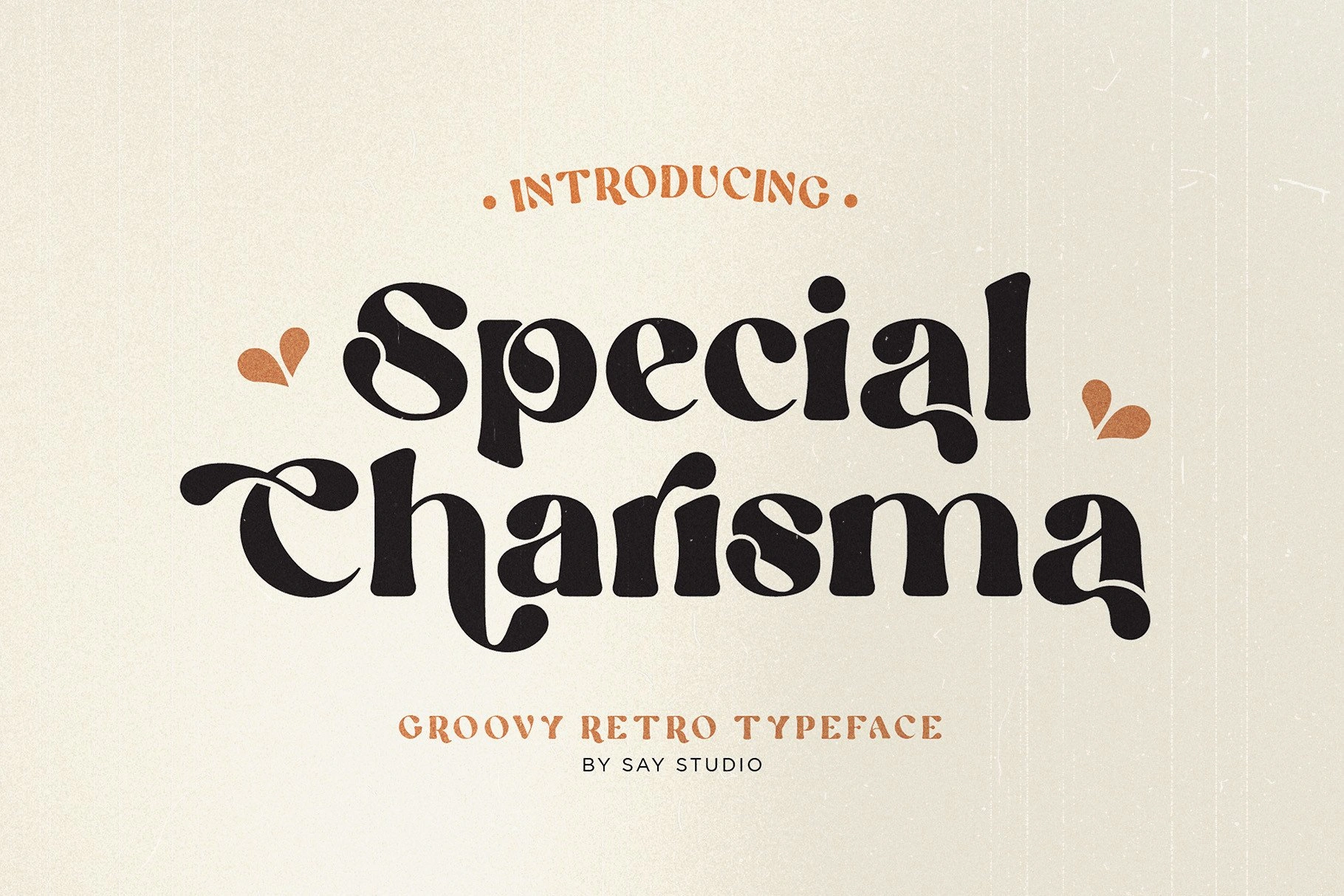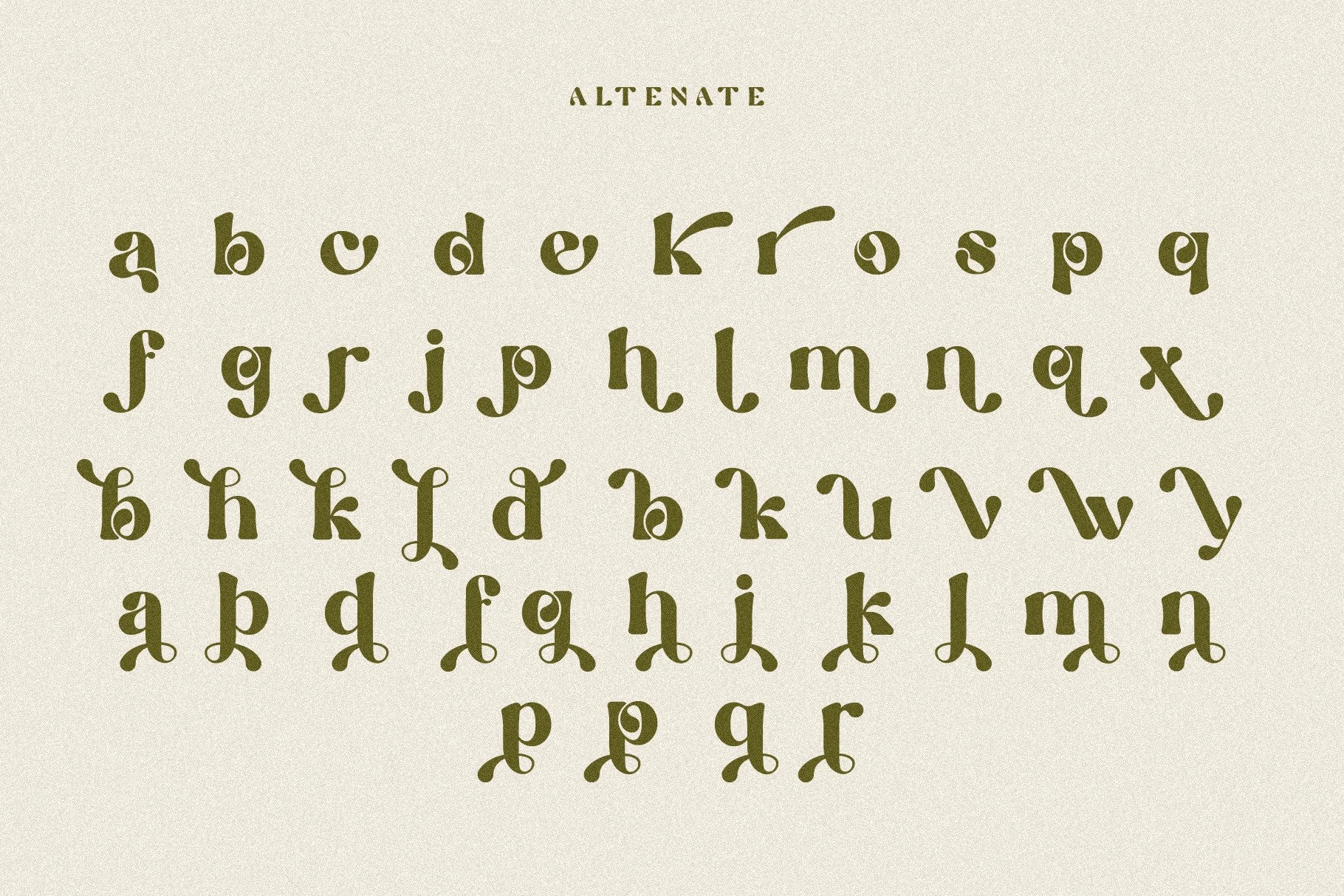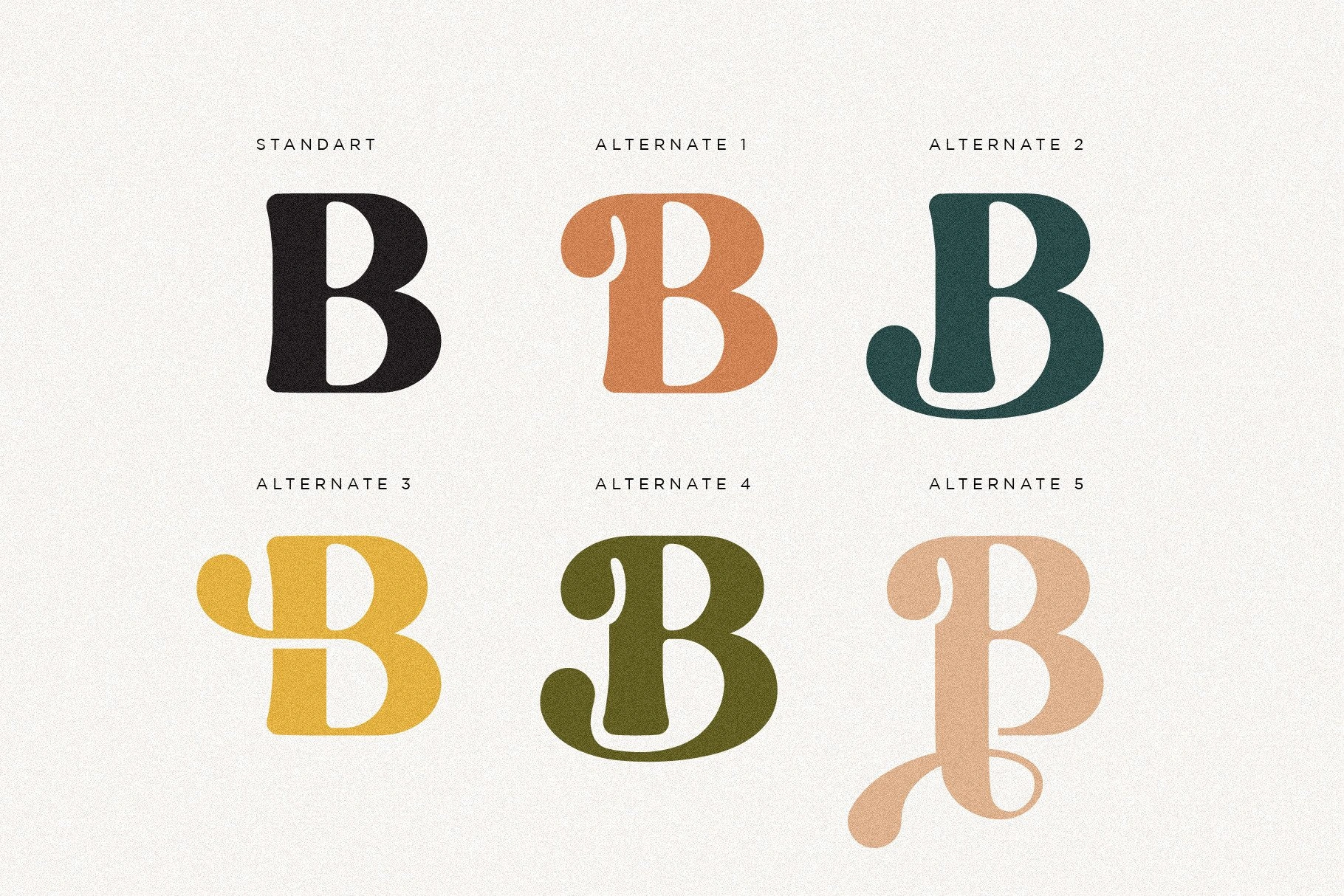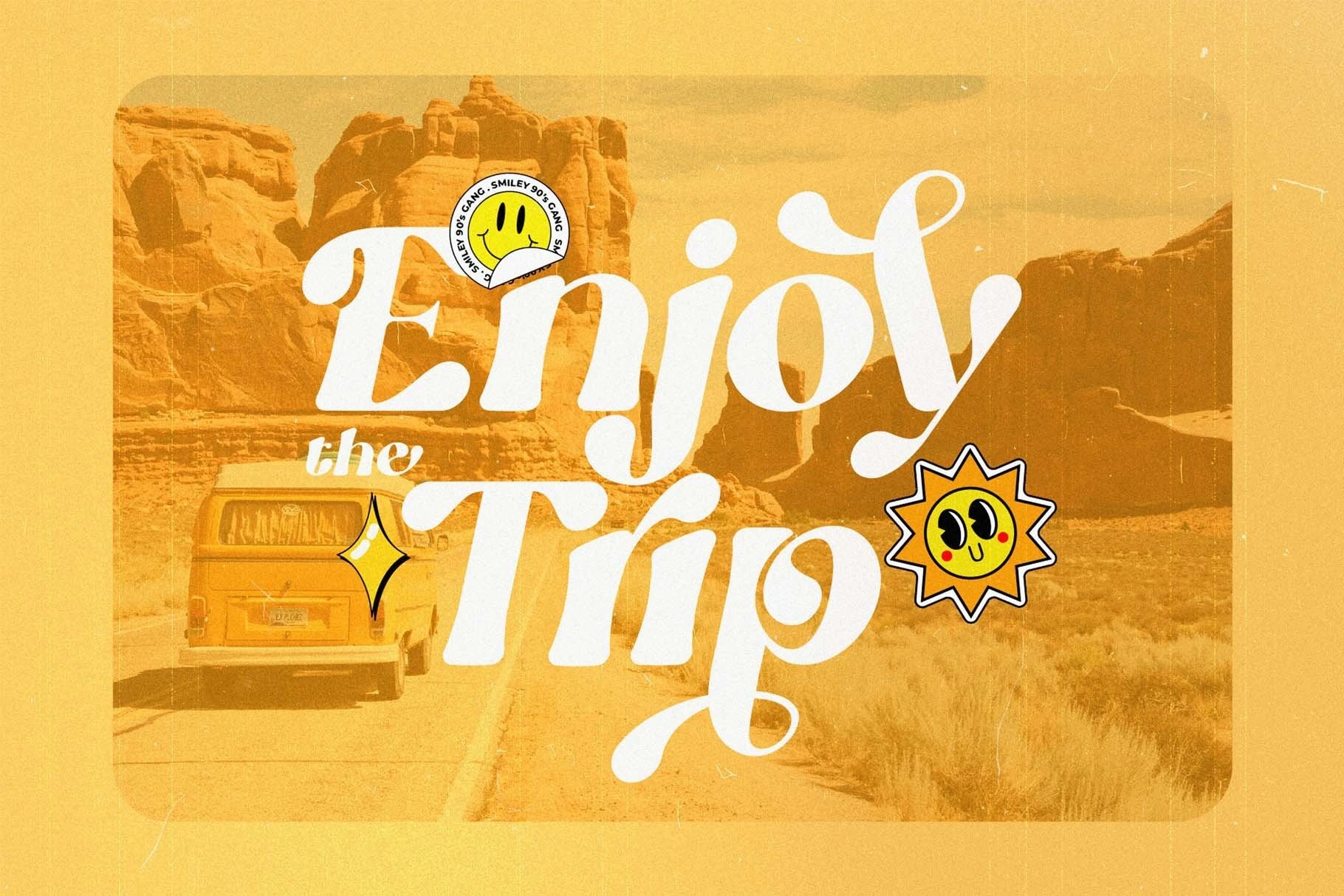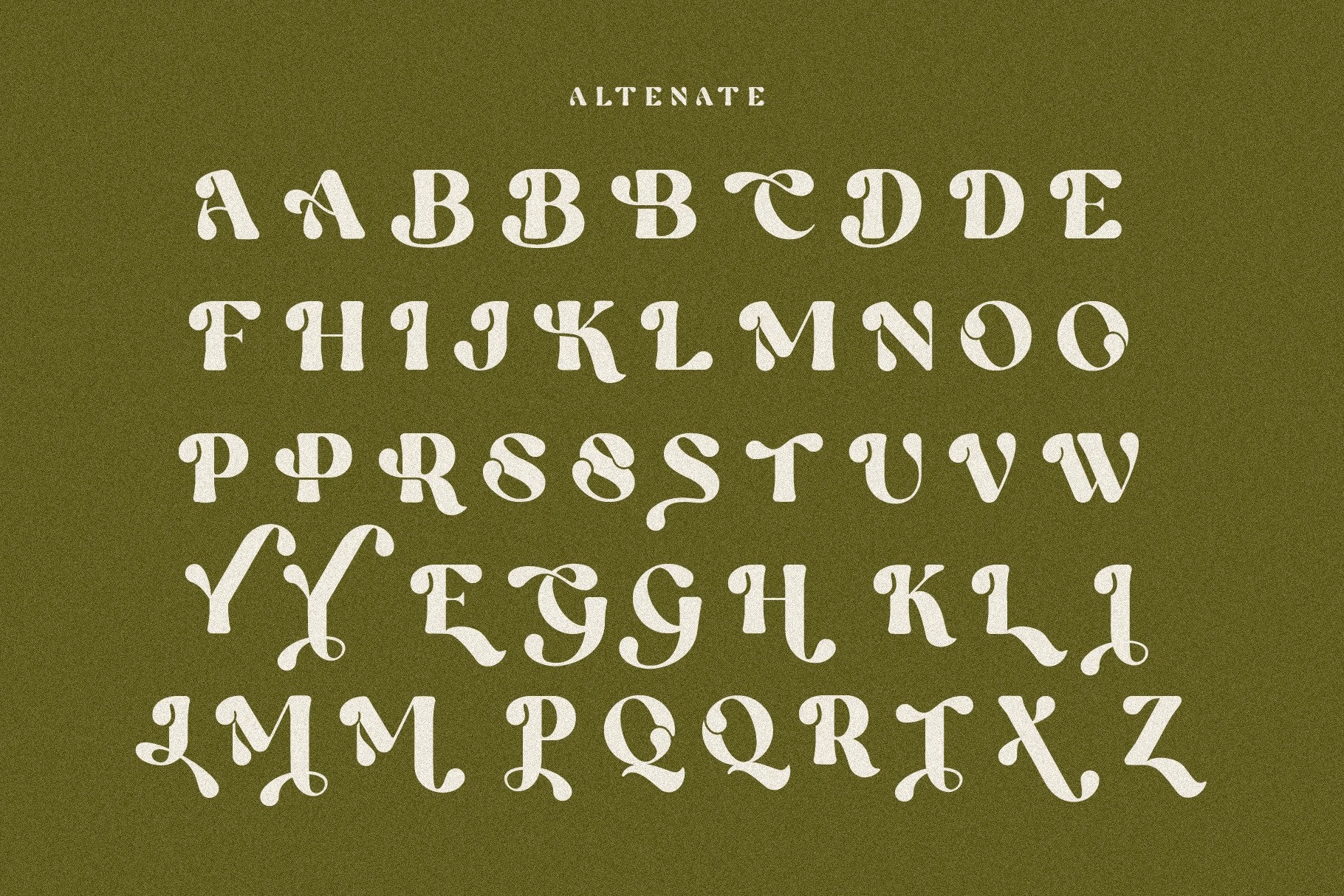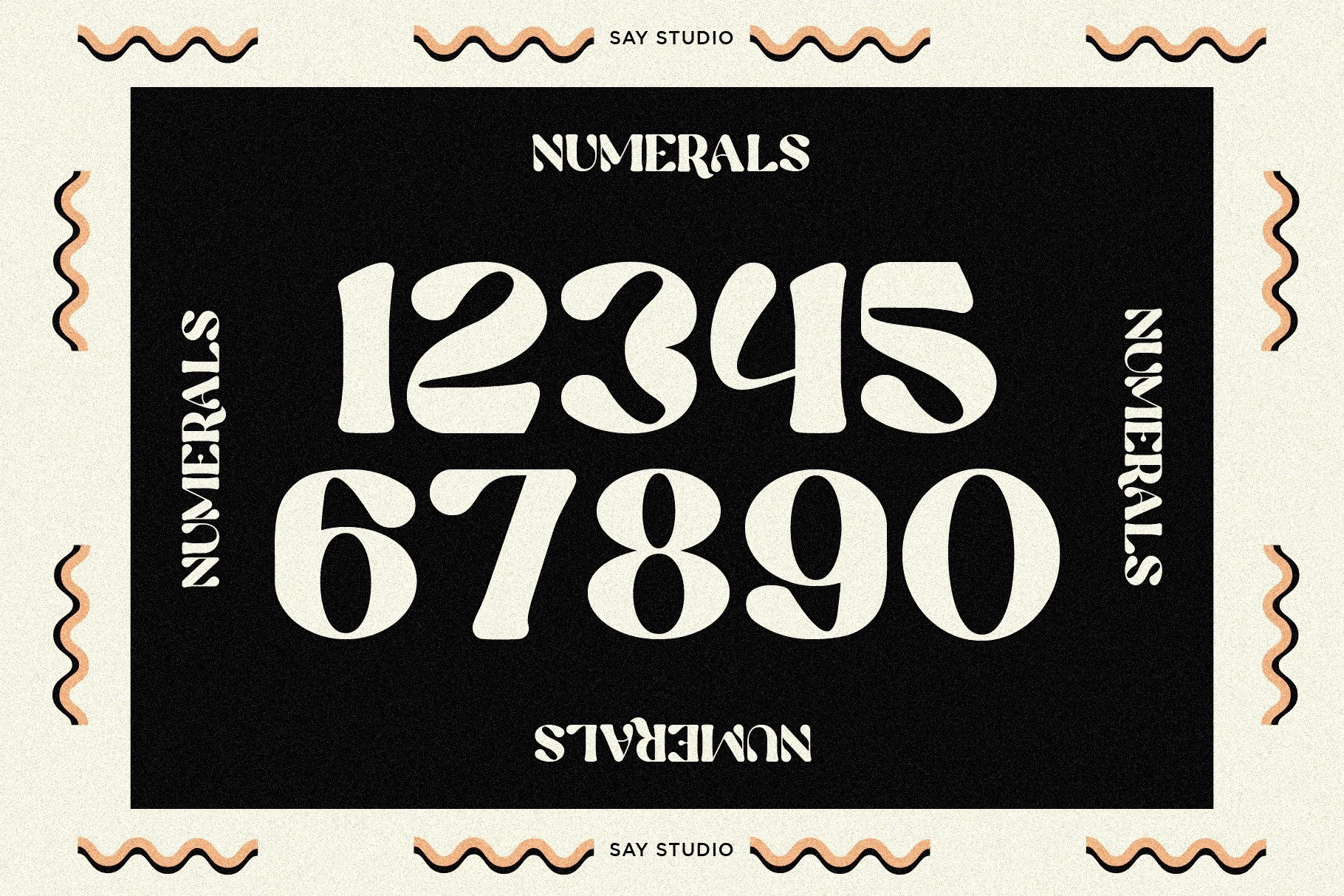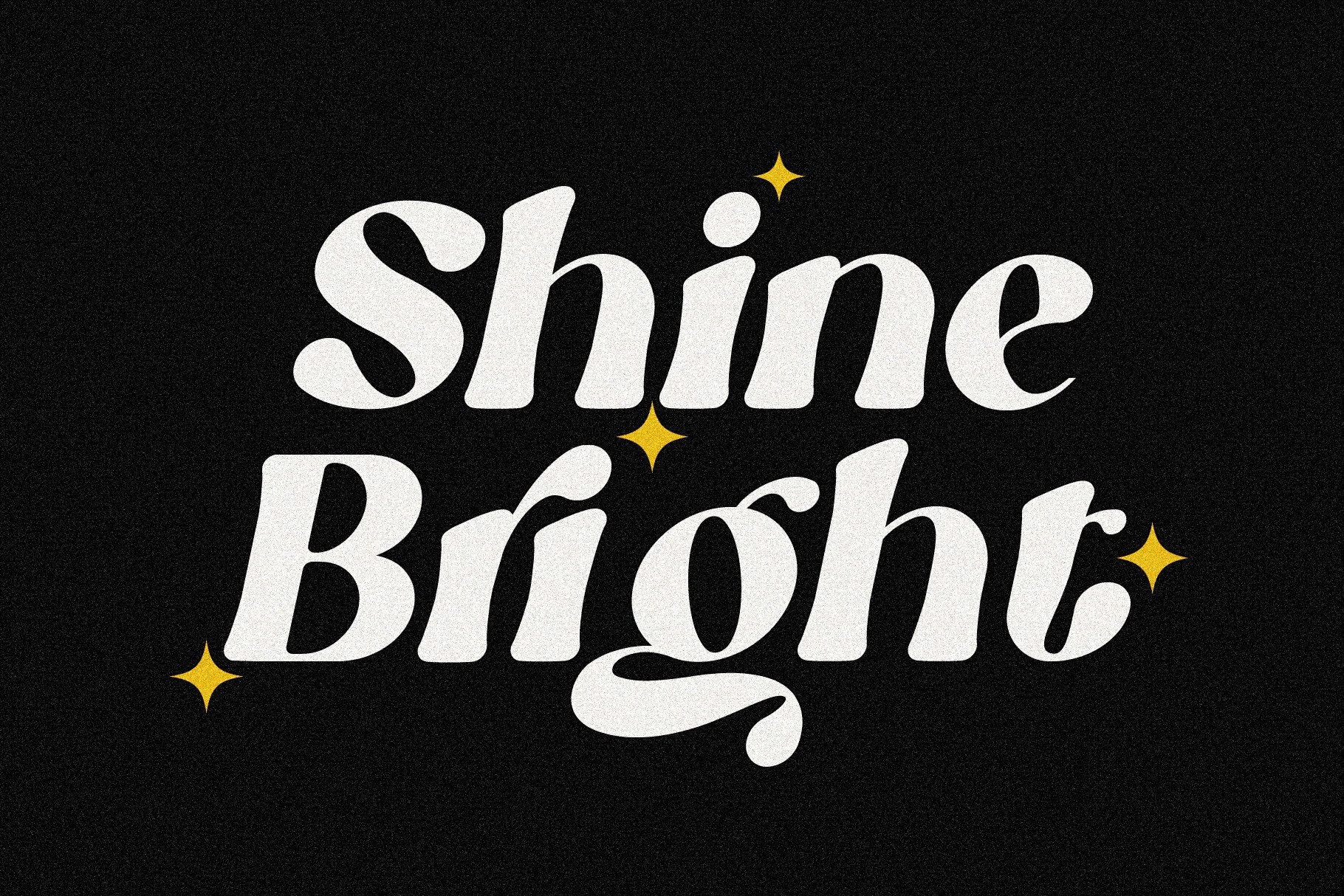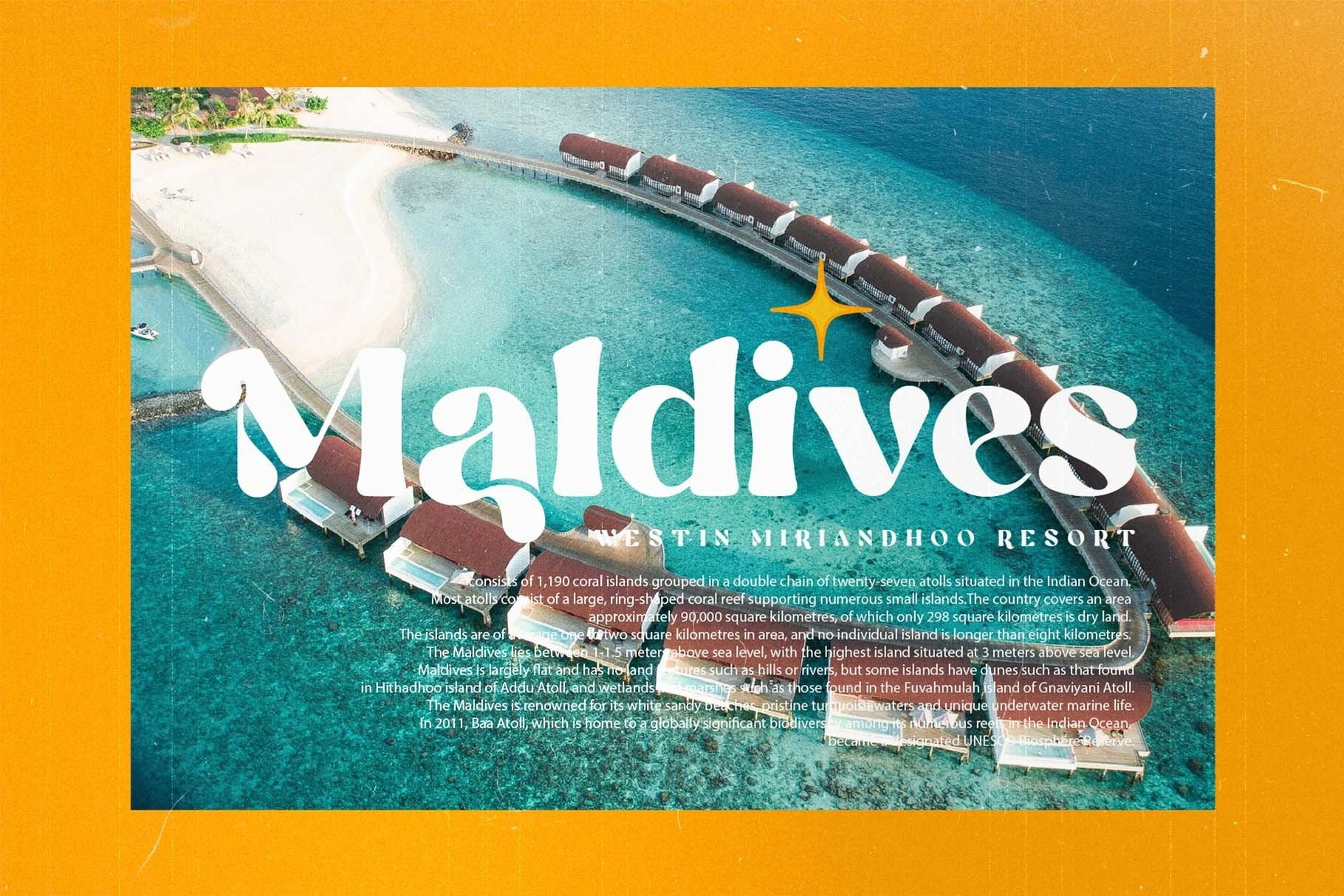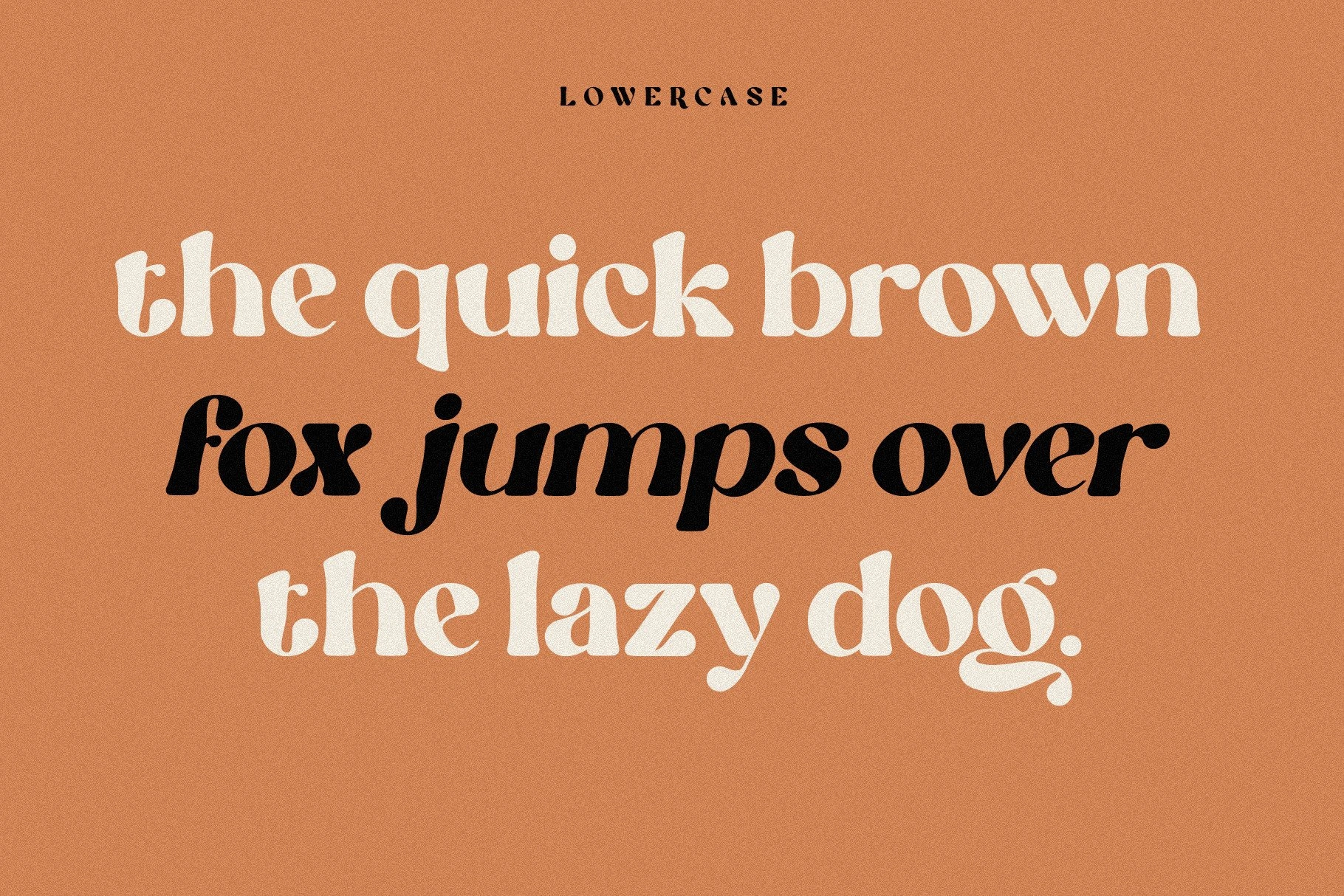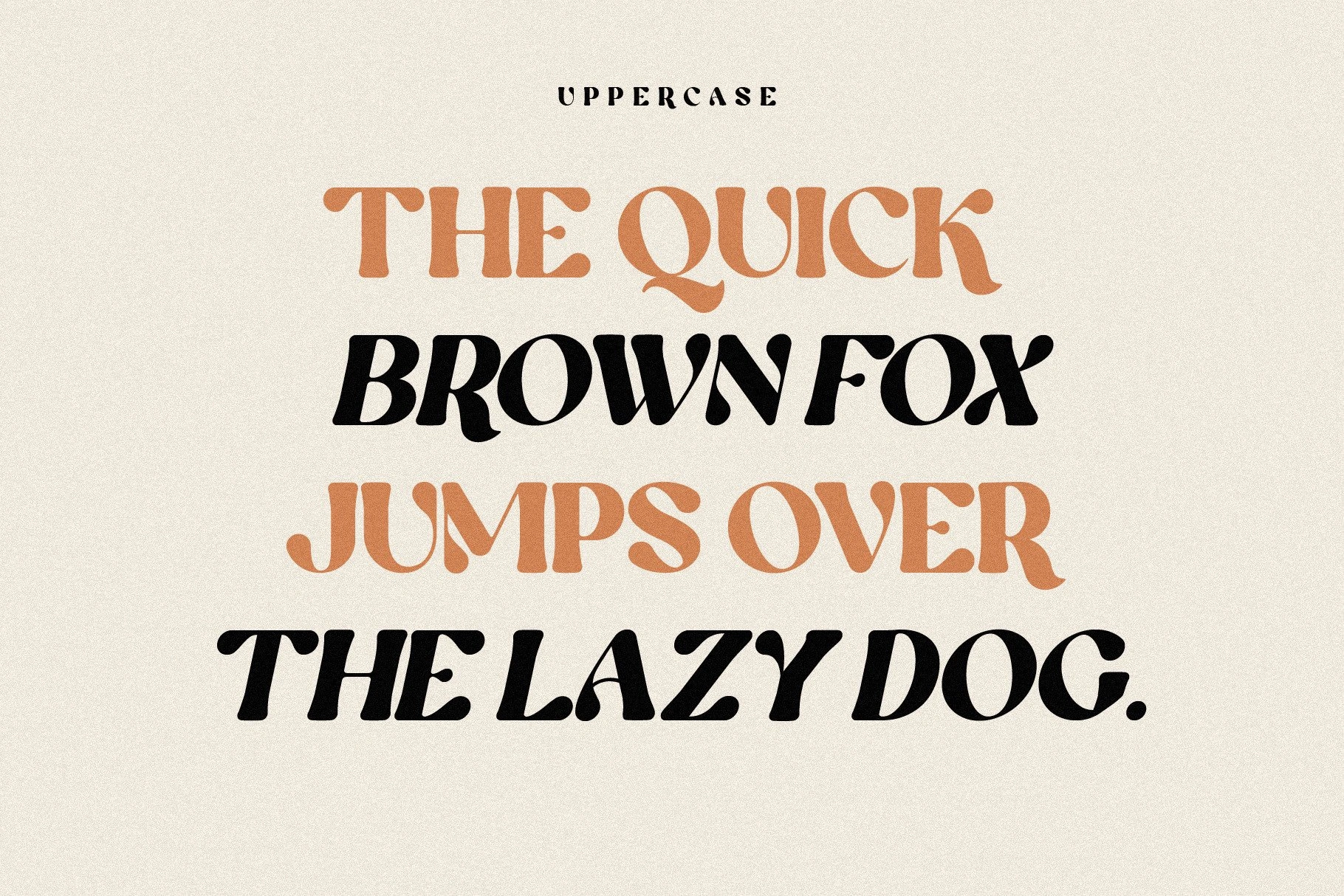
Special Charisma – Display Font
Special Charisma is a stylish vintage retro font inspired by 70’s groovy vibe with a touch of modernity. It looks amazing at display sizes and is easily readable in text size. Olive Village comes with access to your OpenType features, large selection of alternate glyphs and ligatures. There are three versions of this font : REGULAR, ITALIC, and OUTLINE.